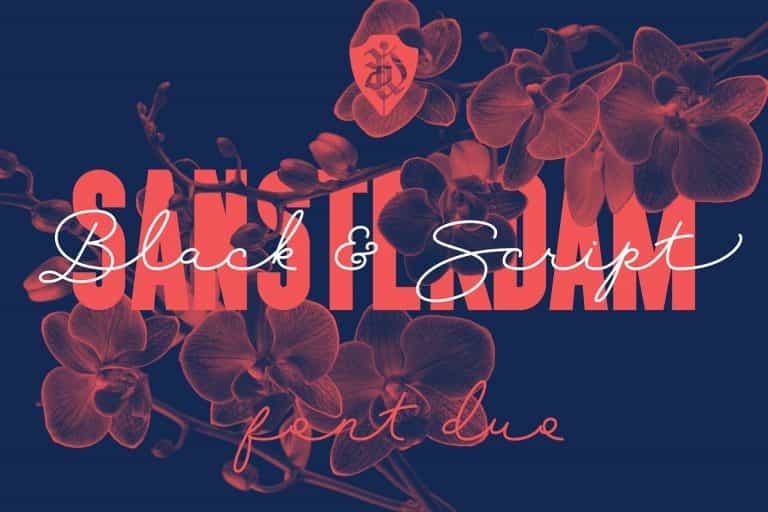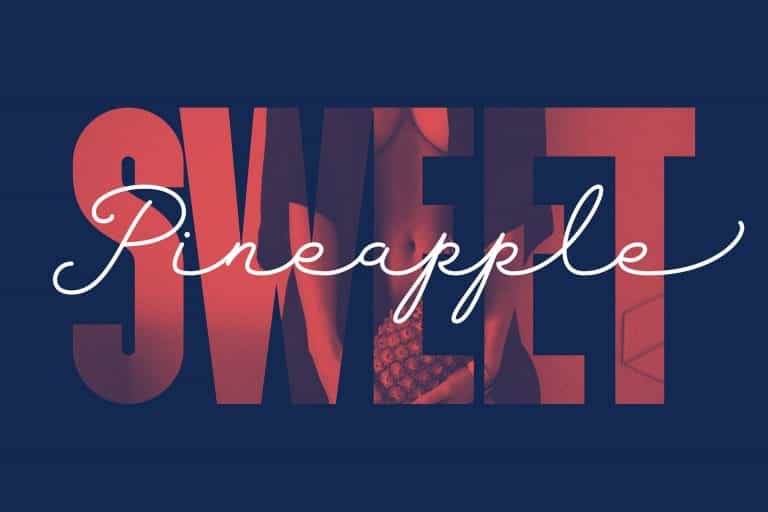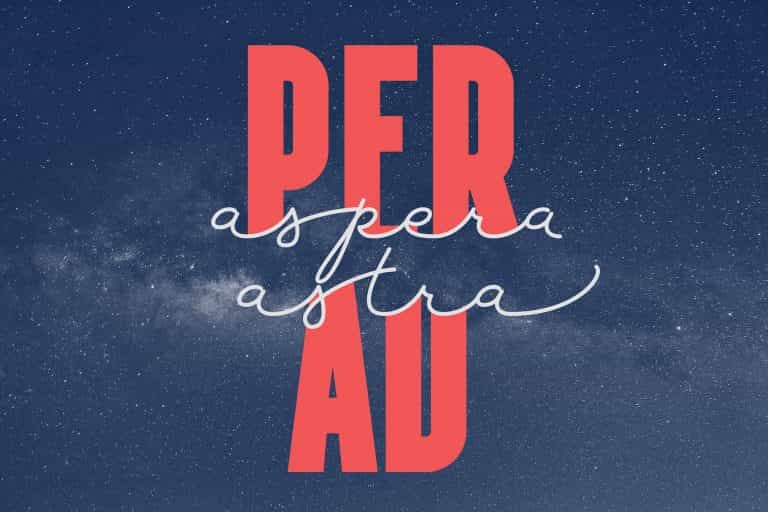
Introducing Sansterdam Font. Sansterdam is a contemporary geometric condensed grotesque font family. It is perfect for titles, posters and logos. The condensed font enables to fit more information in one line.